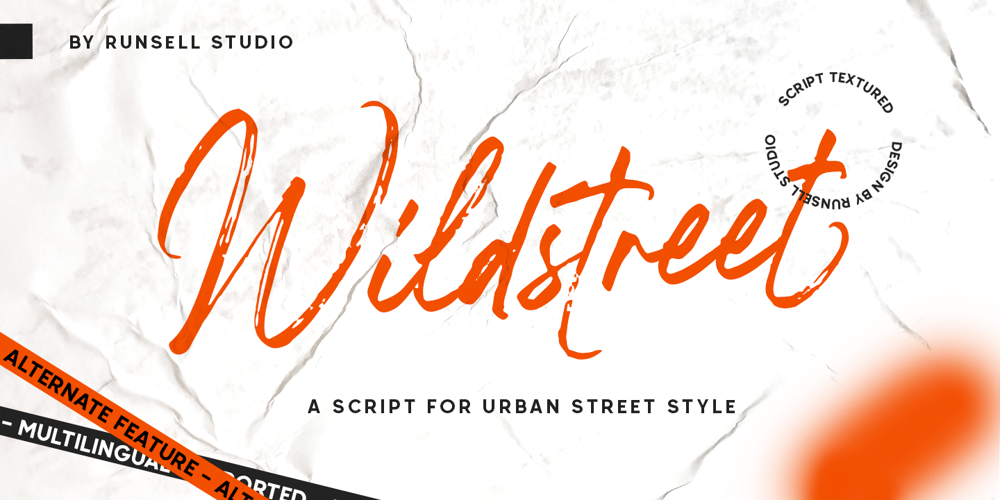
Wildstreet Font Family was designed by Fitriyawan and published by Runsell Type. Wildstreet contains 1 styles and family package options. Wildstreet – Script Urban Street Style A natural script textured brush, matching for urban street themes. The features uppercase, lowercase, numeral, punctuation & symbol, ligatures, alternates, multilingual support, PUA encoded (fully accessible without additional design software). It inspires a handcrafted aesthetic that pairs so well with san serif display.